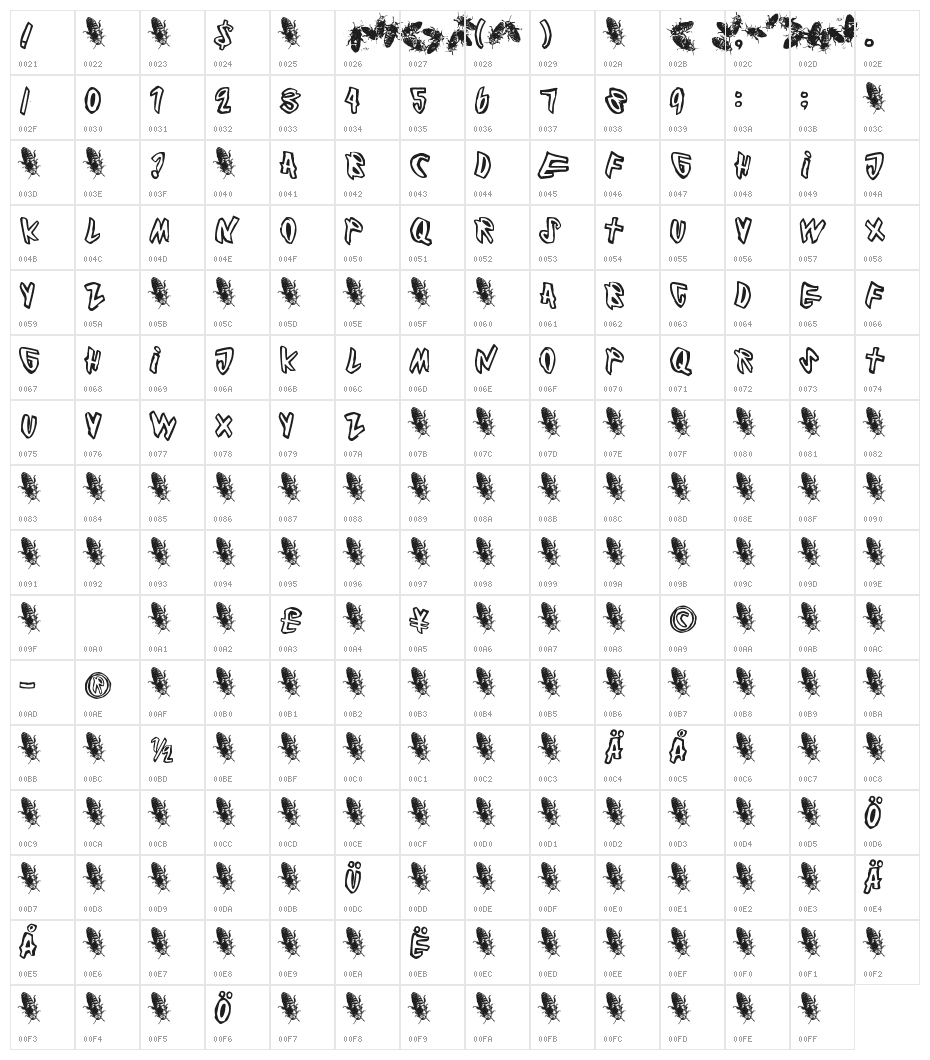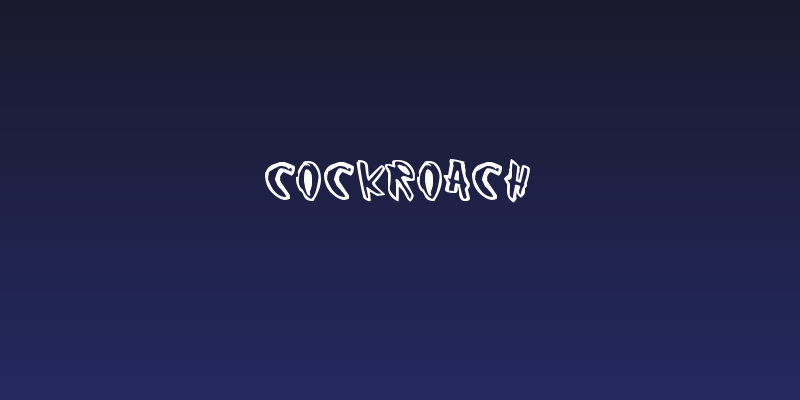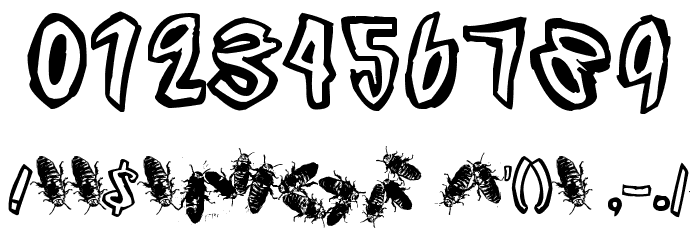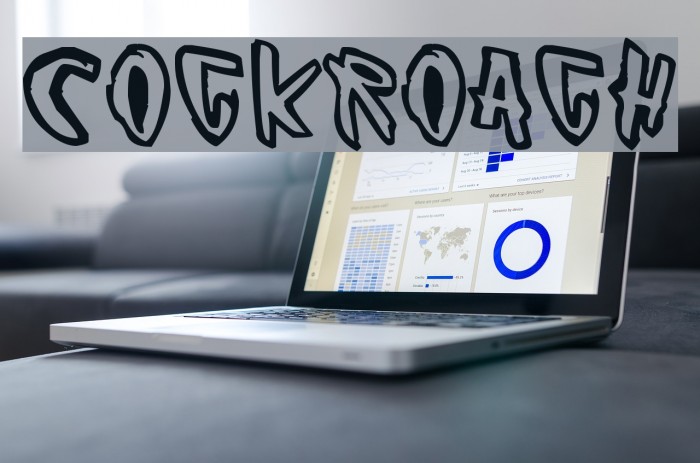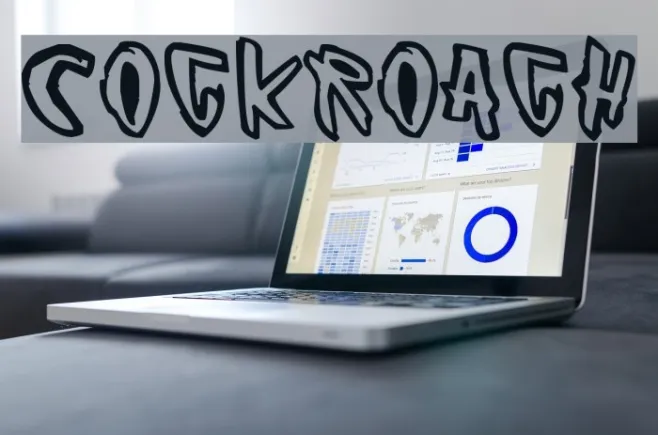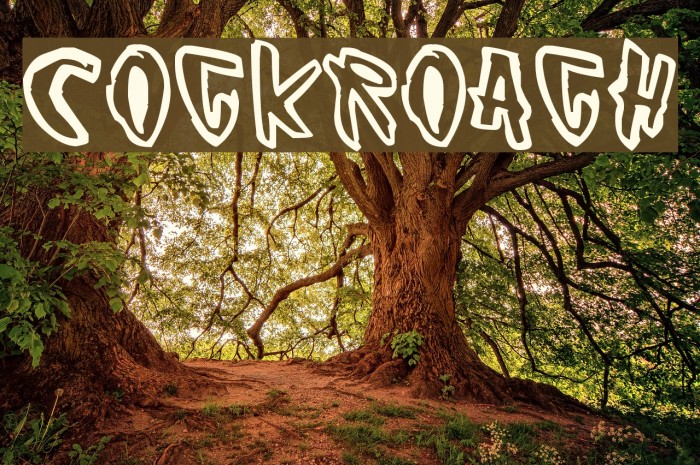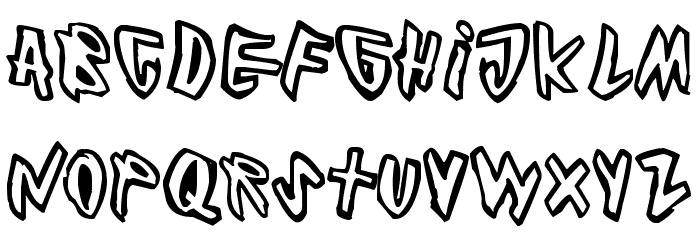
Cockroach Font
Cockroach Description
This font features a bold, graffiti-inspired style with a playful and edgy appearance. The letters are characterized by thick, uneven strokes and a dynamic, hand-drawn look. Each character has a unique flair, with exaggerated curves and angles that give it a lively and energetic feel. The font includes both uppercase and lowercase letters, numbers, and a selection of special characters, all maintaining the same bold and expressive style. The overall design is reminiscent of street art, making it suitable for projects that require a bold and unconventional aesthetic.
| Overall Style | Modern, Urban |
| Use Case | Logos, Posters, Album Covers |
| Proposed Projects | Ideal for street art designs, urban-themed posters, music album covers, and creative branding projects. |